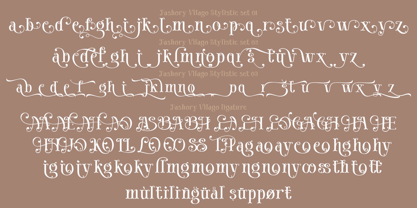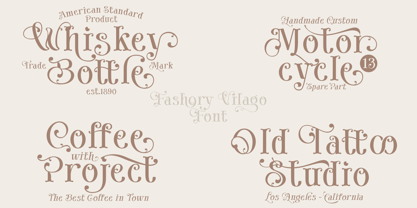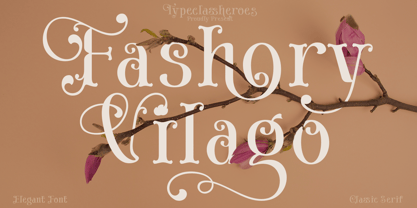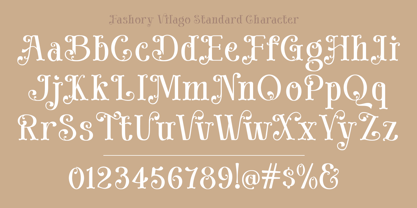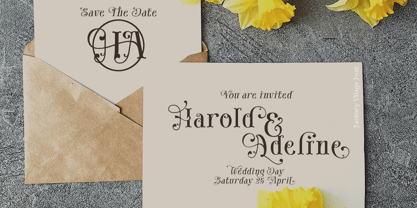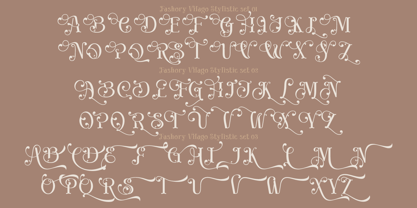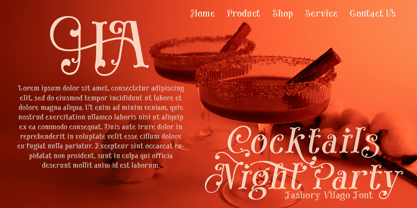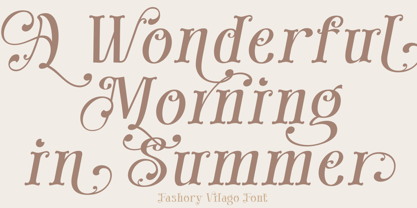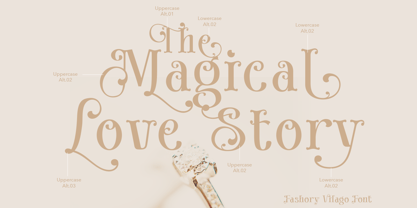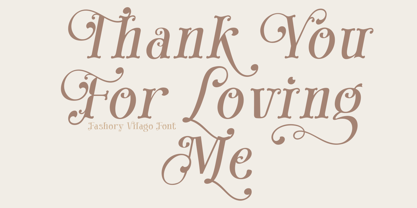
Fashory Vilago
by TypeClassHeroes
Introducing Fashory Vilago a classic font will bring a unique style and a trendy look to your designs. Serif typeface with trending ligatures and special character, curly and swash offering a harmonious balance between classic and elegant design. Suitable for various uses such as headers, titles, book cover, invitation, even for any design work that requires a luxury classic look.
Designers: Suandana ipandemade
Foundry: TypeClassHeroes